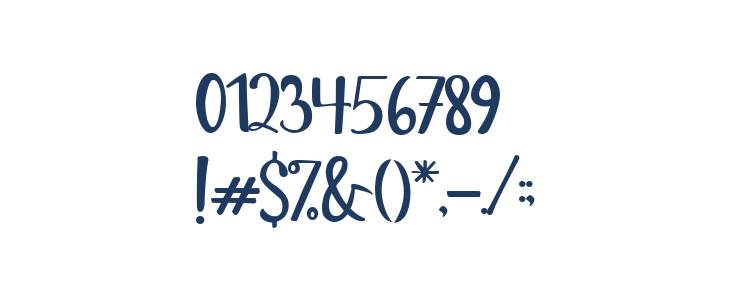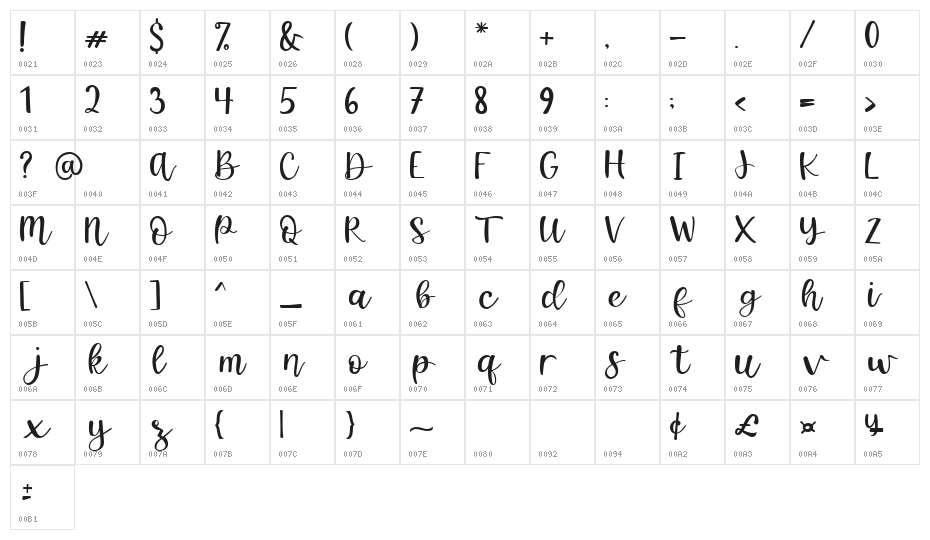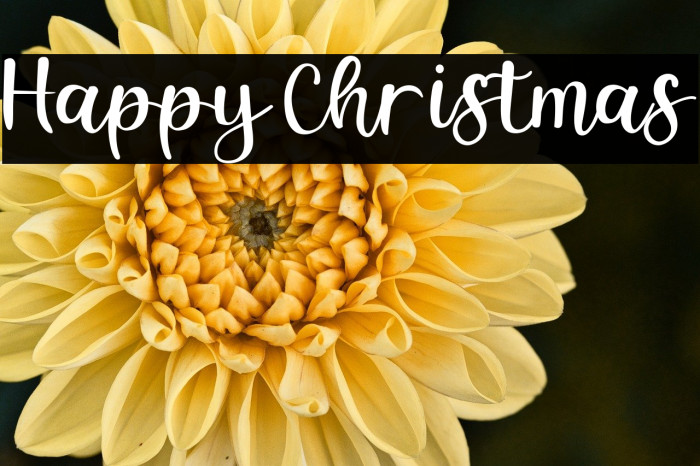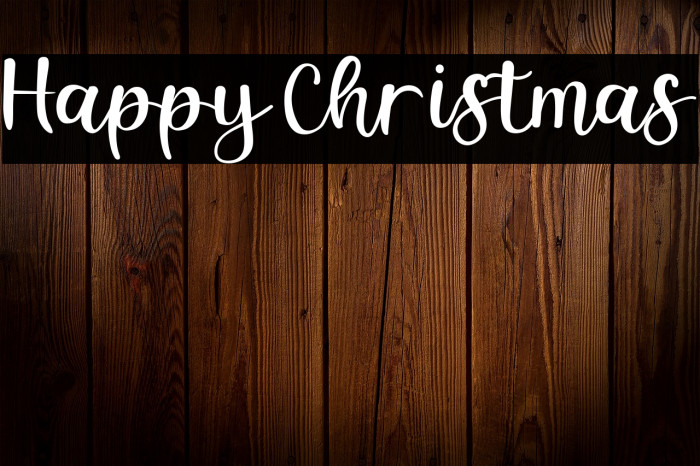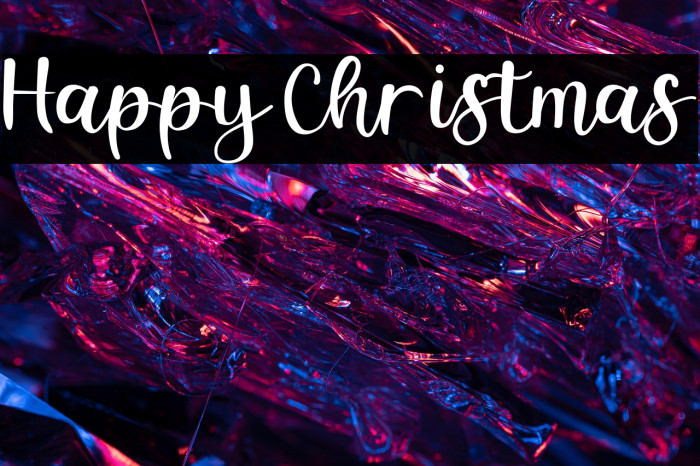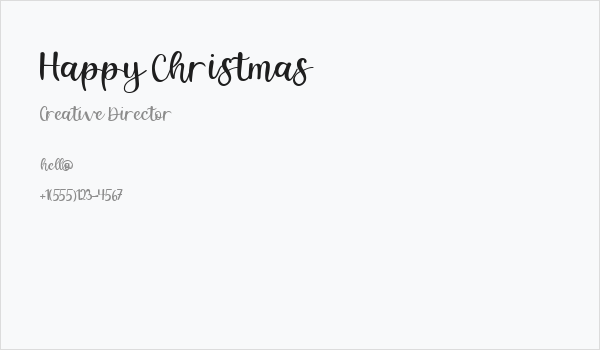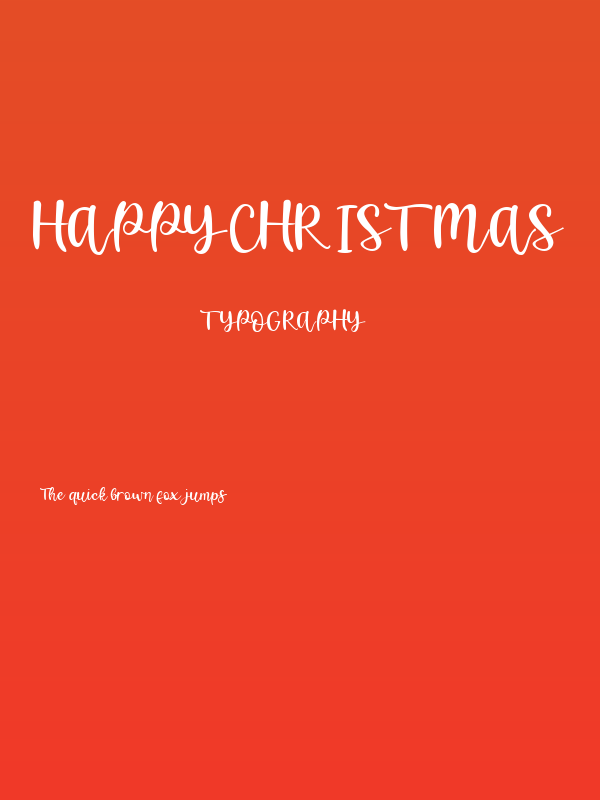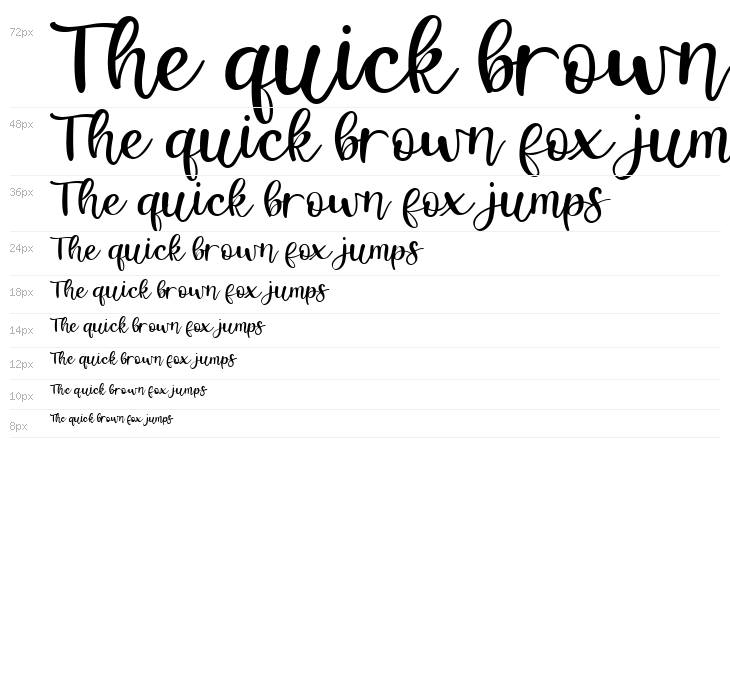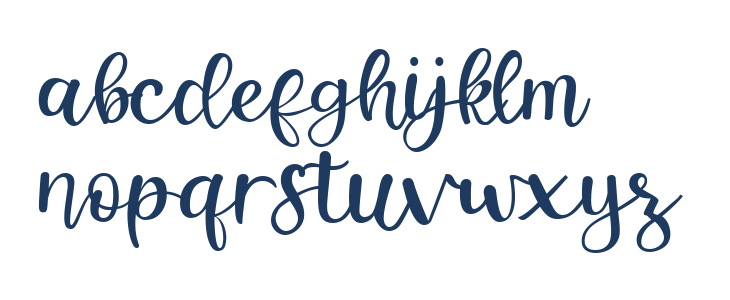
Happy Christmas Font
This font features a playful and flowing script style, characterized by its smooth, connected strokes and a handwritten aesthetic. The uppercase letters are bold and slightly slanted, giving a sense of movement and elegance. The lowercase letters maintain a consistent flow, with some letters featuring loops and curls that add to the whimsical nature of the font. The numerals are rounded and maintain the same playful style as the letters, making them easily readable while still fitting the overall theme. Special characters are designed to match the script style, ensuring a cohesive look across all text elements.
| Proposed Projects | Ideal for holiday cards, invitations, festive branding, and decorative signage. |